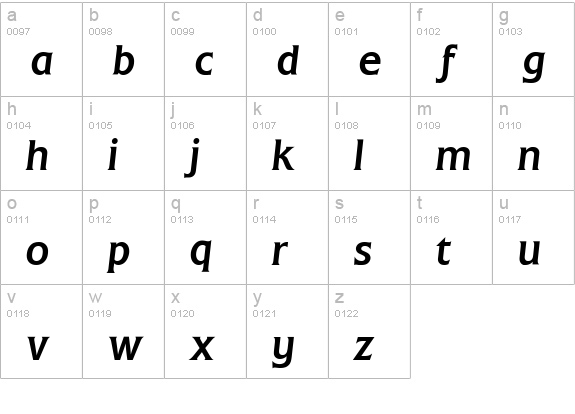
Flange (R) Italic Font Details
Flange (R) Italic is a distinctive, italic variant in the Flange typeface family \xE2\x80\x94 well suited to design and typography projects.
Flange (R) Italic font is a sleek and modern typeface that exudes sophistication and elegance. With its stylish slanted design and sharp edges, this font is perfect for adding a touch of flair to any project. The italicized version of Flange (R) Font adds a dynamic and creative element to your designs, making them stand out from the crowd. This unique font is not only visually appealing but also highly versatile, suitable for a wide range of design applications including branding, advertising, packaging, and more. Whether you're looking to create a bold headline or add a touch of style to your body text, Flange (R) Italic font has got you covered. The best part? Flange (R) Italic font is available for free download at FontsMarket.com. So why wait? Add this stunning typeface to your font collection today and take your designs to the next level.